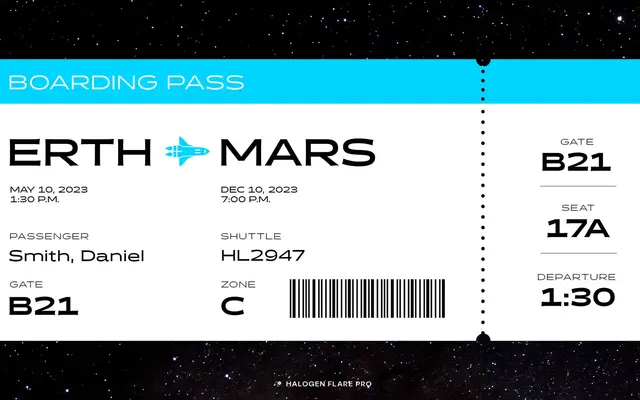
Halogen Flare Pro
Positype · Neil Summerour · 2011
An extended sans-serif originally released in 2011 and remastered in 2024, adding Cyrillic and Greek support across seven weights with obliques.
Halogen Flare Pro is the 2024 remaster of Neil Summerour's extended sans-serif from 2011, which set out to combine a generous x-height and broad character set with visual character rather than plain utility. The Pro edition expands script coverage to include Cyrillic and Greek across 42 styles, and adds OpenType features including small caps, oldstyle numerals, fractions and stylistic alternates. With 343 supported languages and over 700 glyphs per style, it suits both display and extended text settings.
A wide, extended sans-serif with an upright design and oblique rather than true italic, featuring a generous x-height and stylistic flare details that distinguish it from a neutral grotesque or geometric.